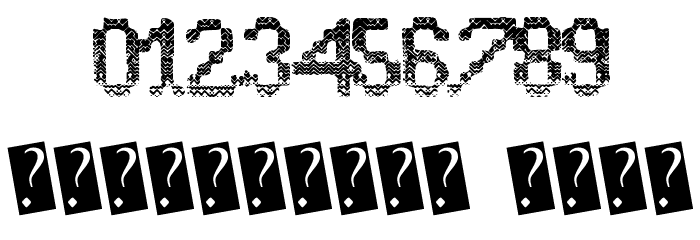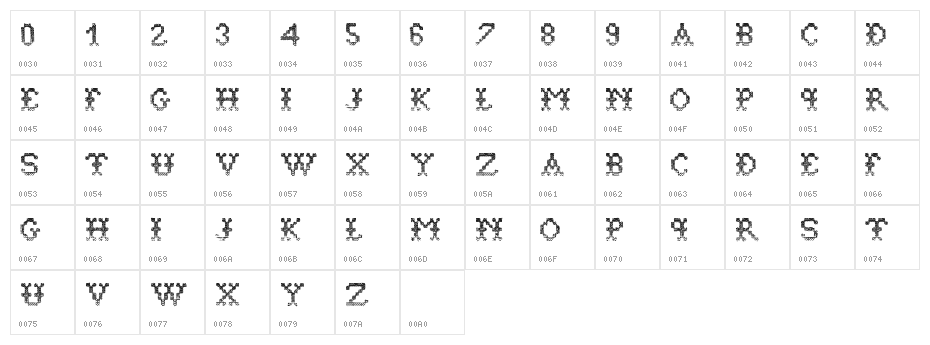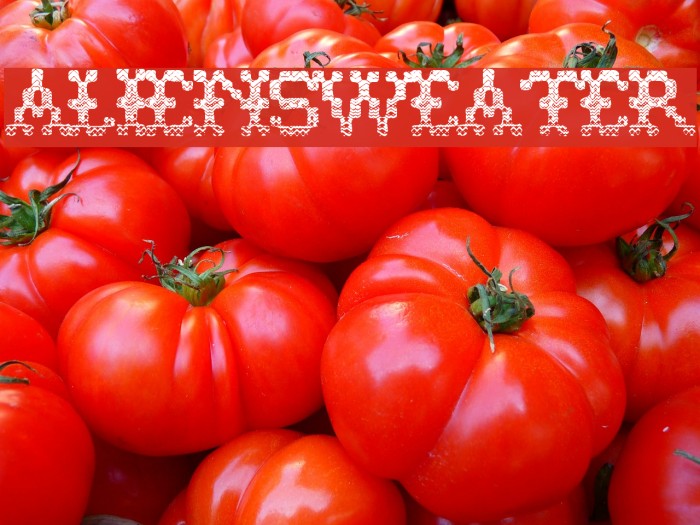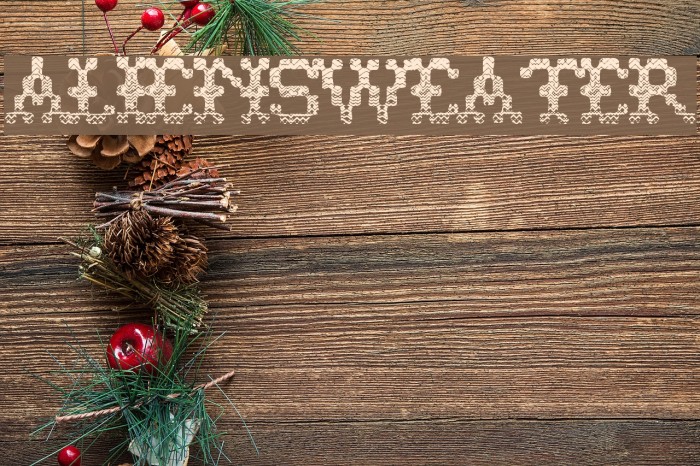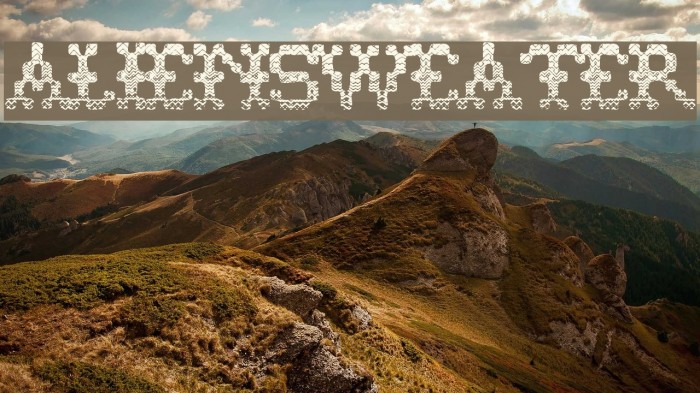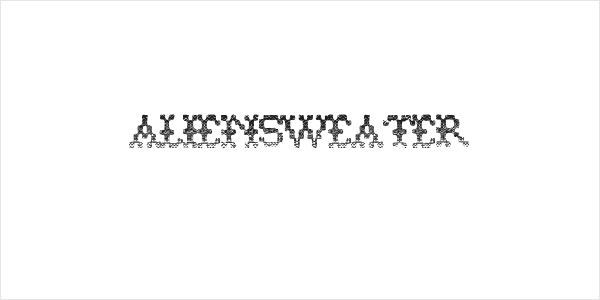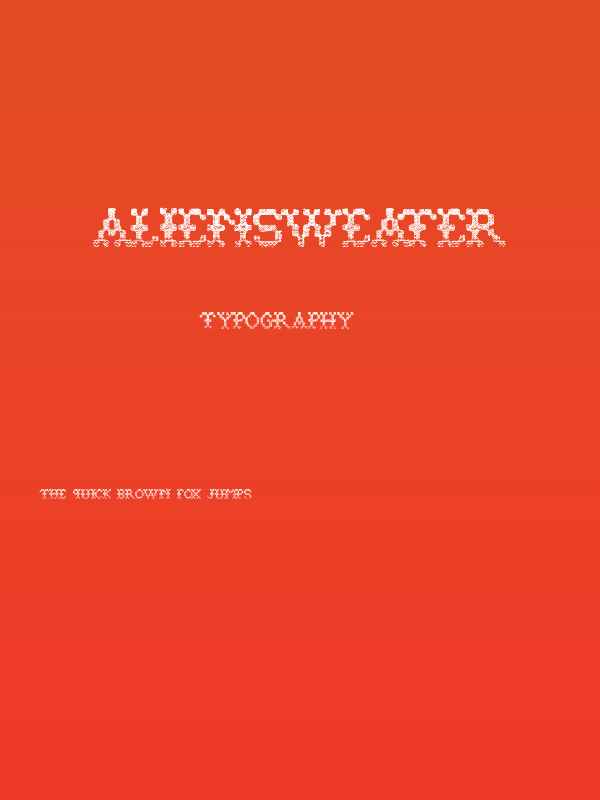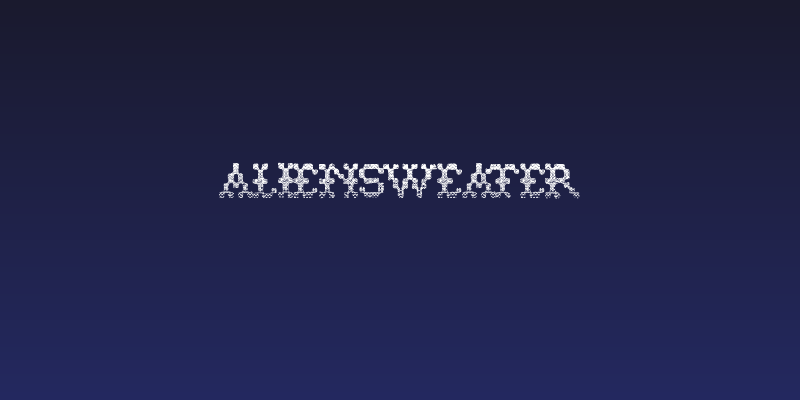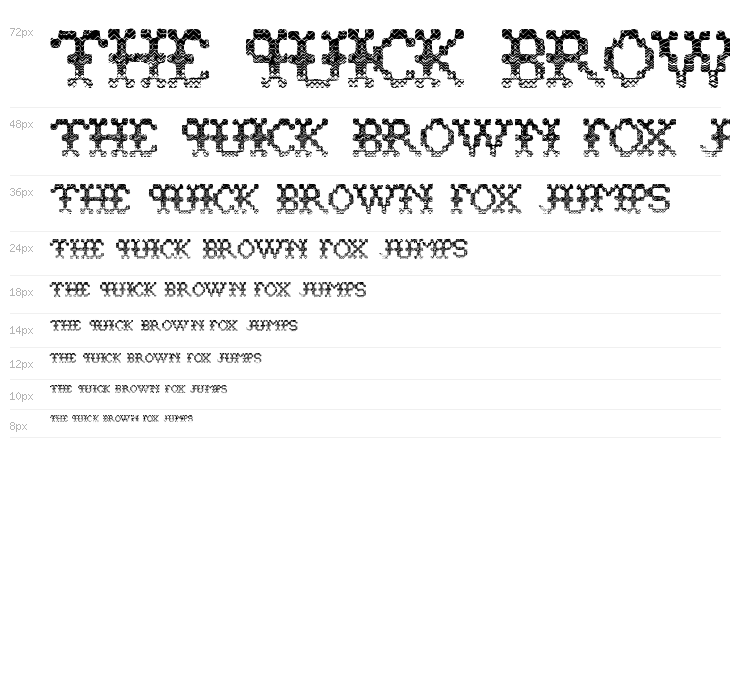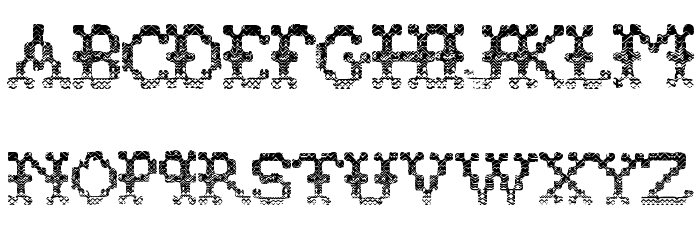
AlienSweater Font
AlienSweater Description
This font features a unique, pixelated design reminiscent of retro video game graphics. Each character is constructed with a pattern that resembles a knitted texture, giving it a distinctive, handcrafted appearance. The uppercase and lowercase letters maintain a consistent style, with bold, blocky shapes that are both eye-catching and playful. Numbers and special characters follow the same design principles, ensuring uniformity across all elements. The font's intricate details and decorative style make it ideal for projects that require a touch of nostalgia or a quirky, fun aesthetic.
| Overall Style | Retro, Decorative |
| Proposed Projects | Ideal for video game designs, retro-themed posters, quirky branding, and creative digital art projects. |